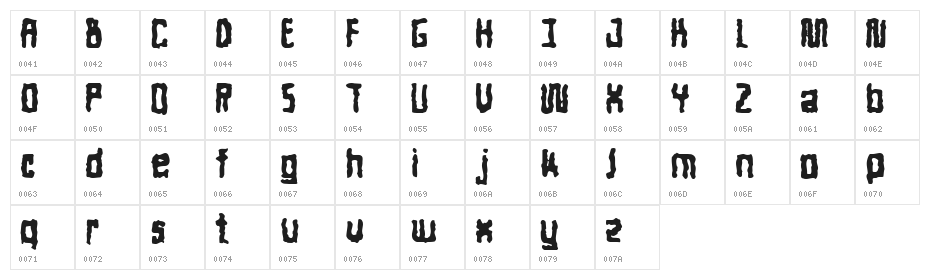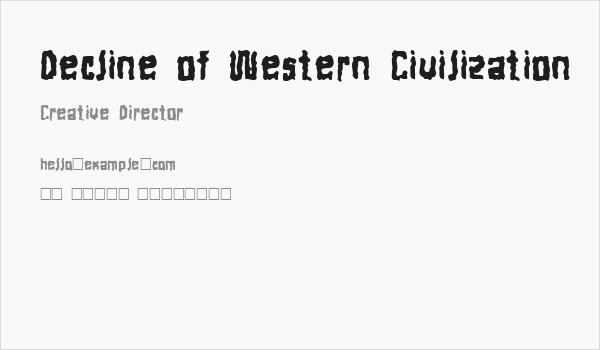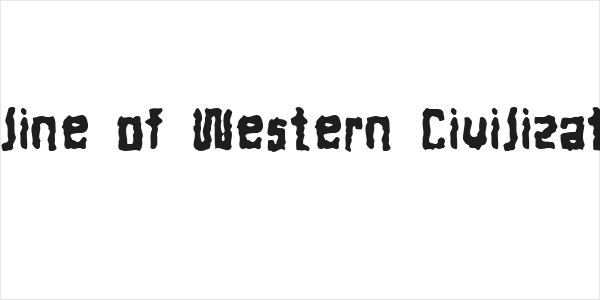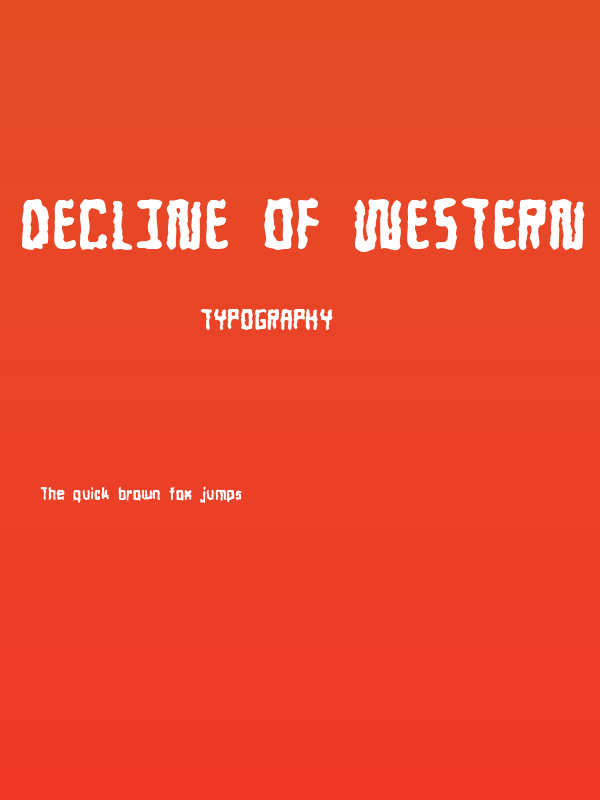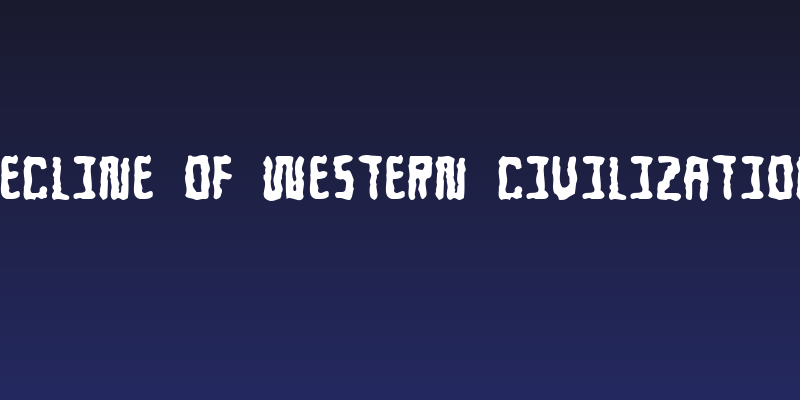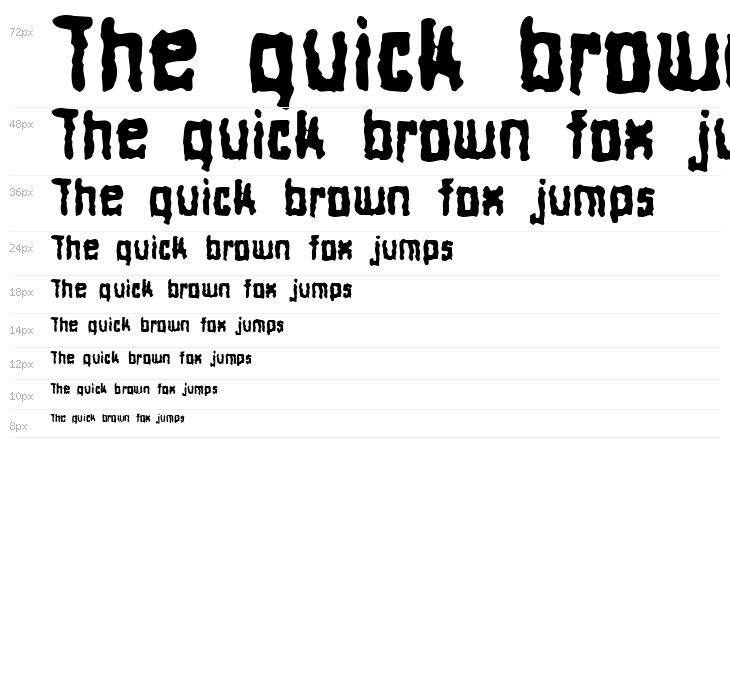
Decline of Western Civilization Font
Decline of Western Civilization Description
This font features a bold and rugged design, characterized by its irregular, organic shapes that give it a distressed and grungy appearance. The letters are thick and uneven, with a hand-drawn quality that suggests a sense of decay or erosion. This style is reminiscent of urban graffiti or the aesthetic of punk rock, making it ideal for projects that aim to convey a sense of rebellion or nonconformity. The uppercase and lowercase letters maintain a consistent style, with the uppercase being slightly more pronounced. The font lacks traditional serifs, adding to its modern and edgy feel.
| Overall Style | Grunge, Urban, Edgy |
| Proposed Projects | Ideal for album covers, posters, and branding for edgy or alternative products. |